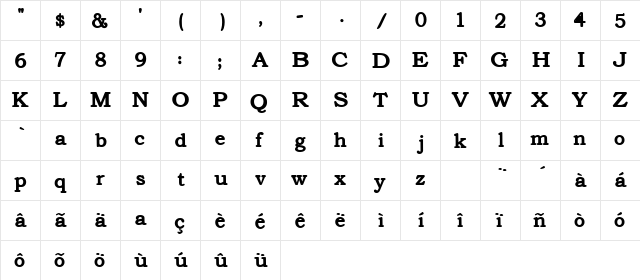
Text Serif Heavier HPLHS
Design Context for Text Serif Heavier Typeface
Text Serif Heavier carries the refined structure of traditional serif typography, with bracketed terminals and considered proportions that communicate credibility and craft.
Pro Tip: Set Text Serif Heavier with slightly loose tracking in headlines to let each letterform's detail read clearly at display sizes.